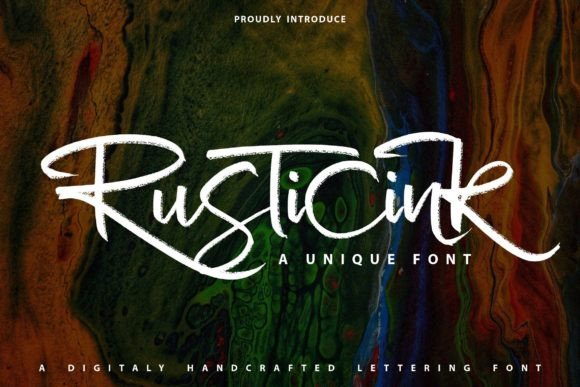
Embark on a creative journey with Rusticink, a captivating script font that weaves timeless elegance into your digital creations. Experience the charm of handwritten artistry as you design eye-catching logos, branding, and quotes that resonate with authenticity and warmth.
Rusticink is not just a font; it's an artistic expression that captures the essence of nature's beauty. Its fluid lines and organic curves evoke the allure of handwritten letters, reminiscent of cherished notes penned with care. Each character in the Rusticink family carries a unique personality, adding a touch of individuality to your designs.
Unleash your imagination and let Rusticink transform your digital projects into masterpieces. Whether you're crafting a personal logo that reflects your unique style or designing a brand identity that exudes sophistication, Rusticink provides the perfect foundation for your creative vision.
Immerse yourself in a symphony of aesthetics as Rusticink adds a touch of elegance to your quotes and social media posts. Its natural charm effortlessly elevates your words, captivating your audience with its timeless beauty.
With Rusticink, you're not just downloading a font; you're embracing an artistic legacy that will bring life to your creative endeavors. Discover the magic of Rusticink today and embark on a journey of design excellence.